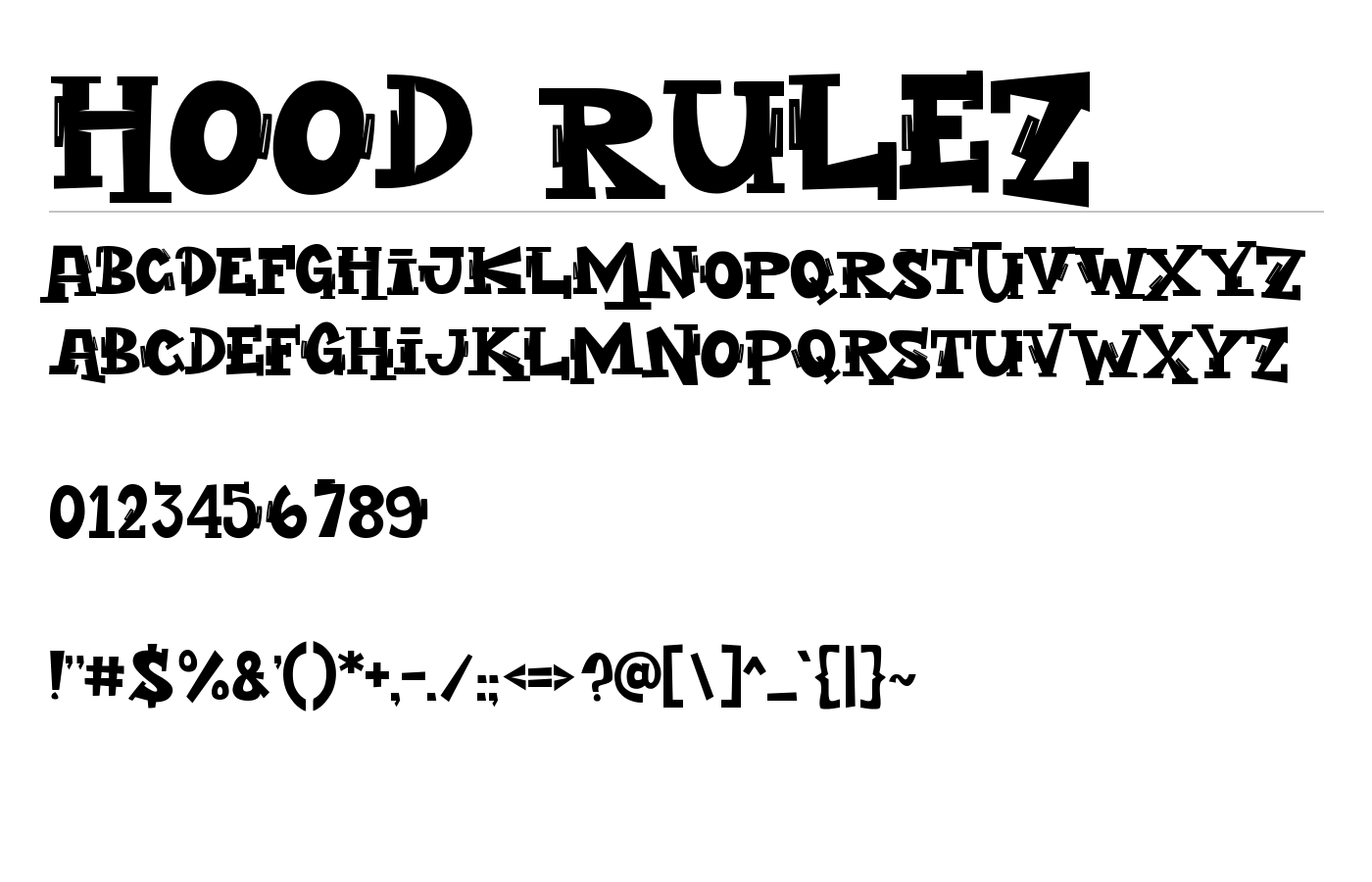
Hood Rulez is a bold, playful display font with a unique, irregular structure that gives it an energetic and urban vibe. Its wide, chunky letterforms feature varying stroke thicknesses and quirky angles, making it perfect for eye-catching headlines, posters, and designs that aim to convey a fun, streetwise personality. This font works well for brands and projects looking to stand out with a distinctive, informal style full of character.
Hood Rulez Font
About Hood Rulez Font